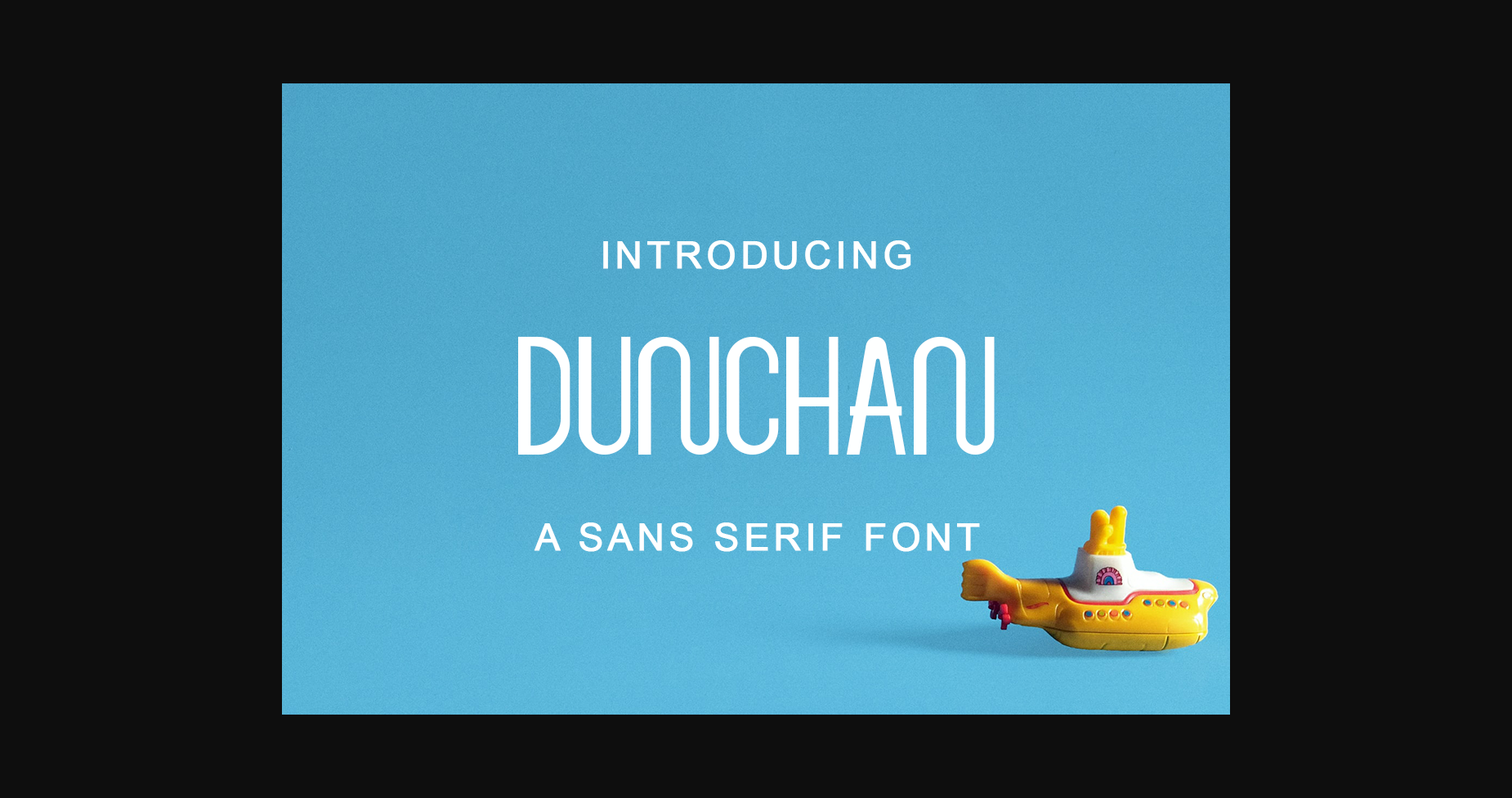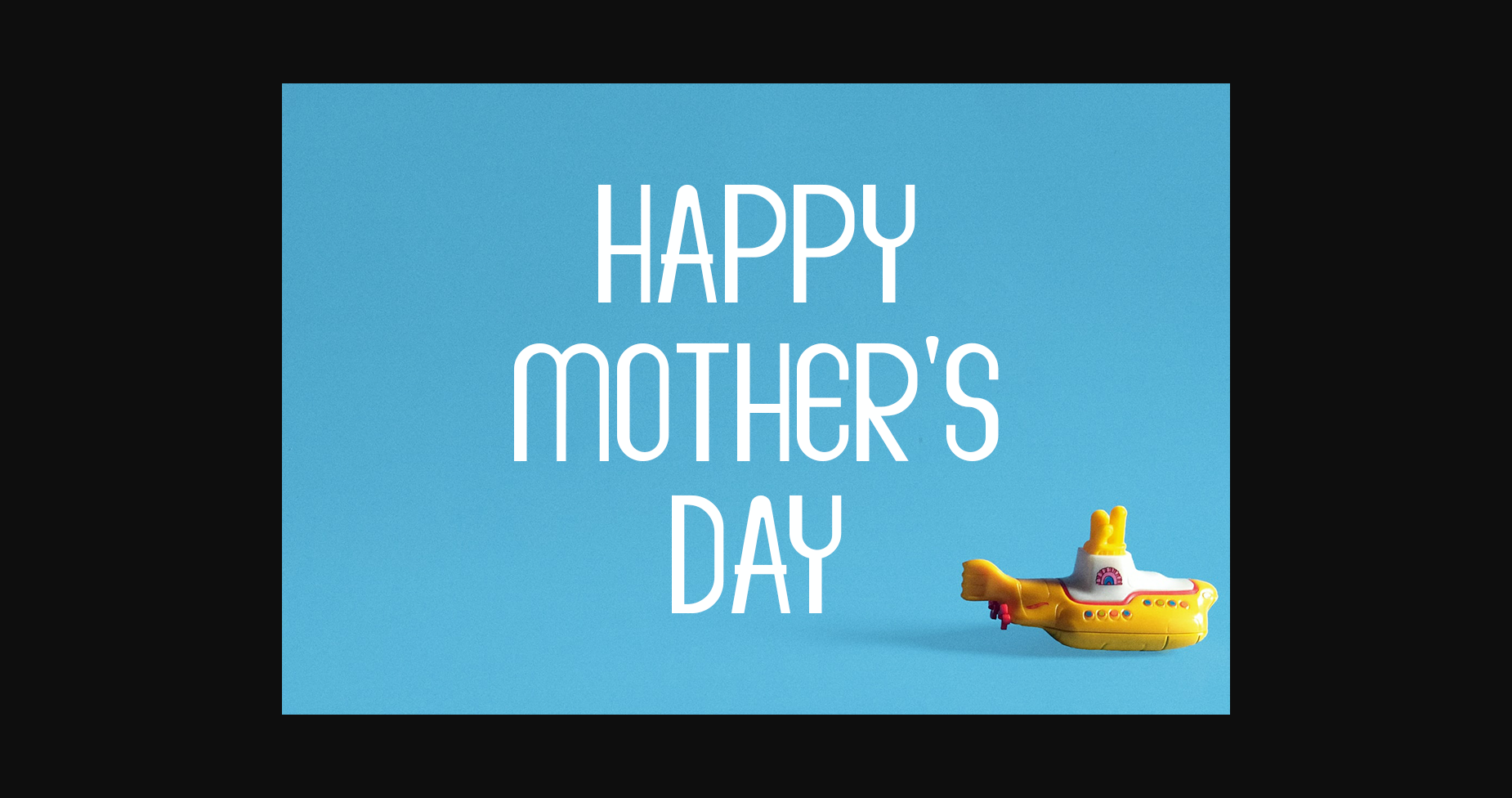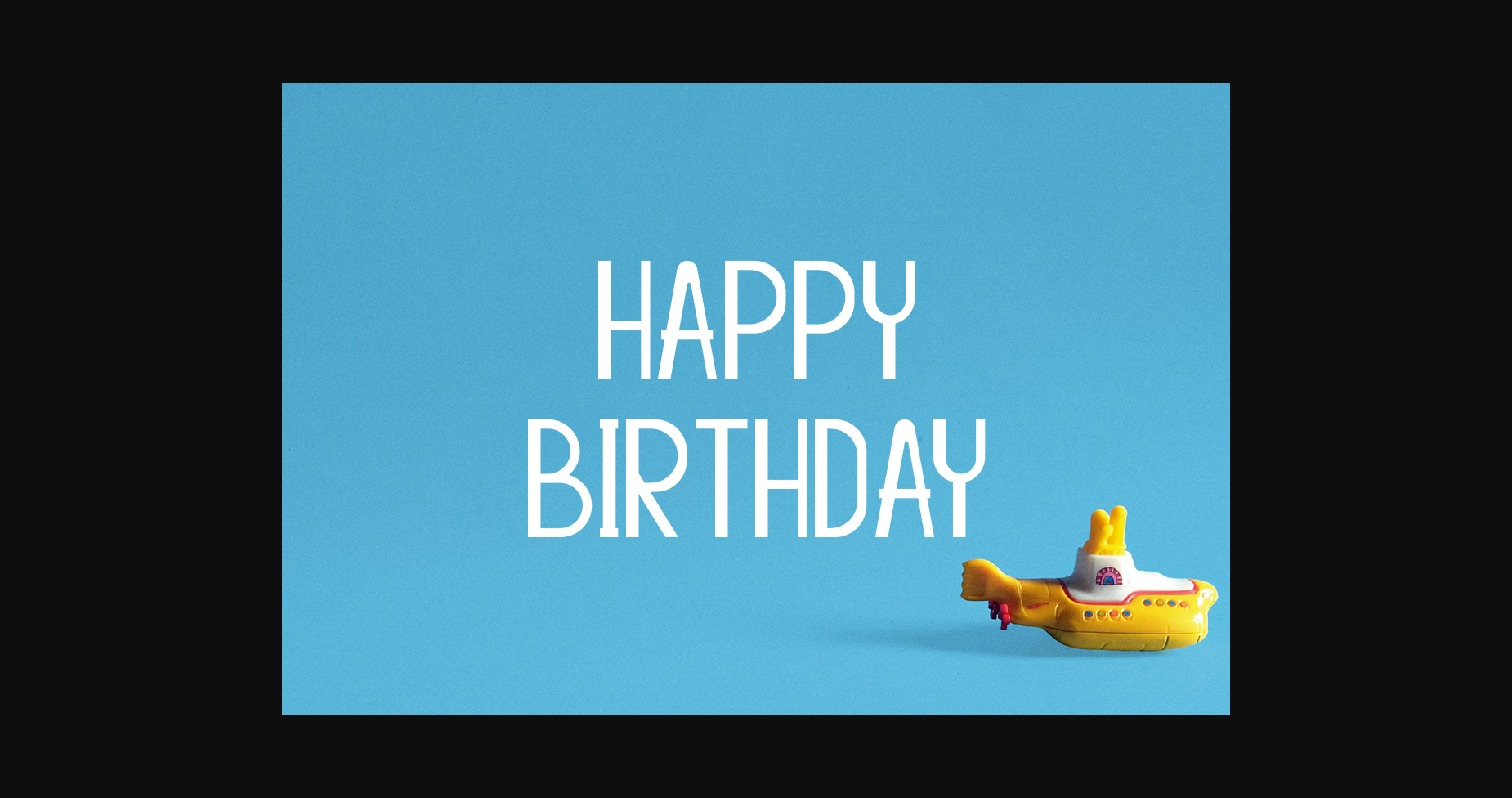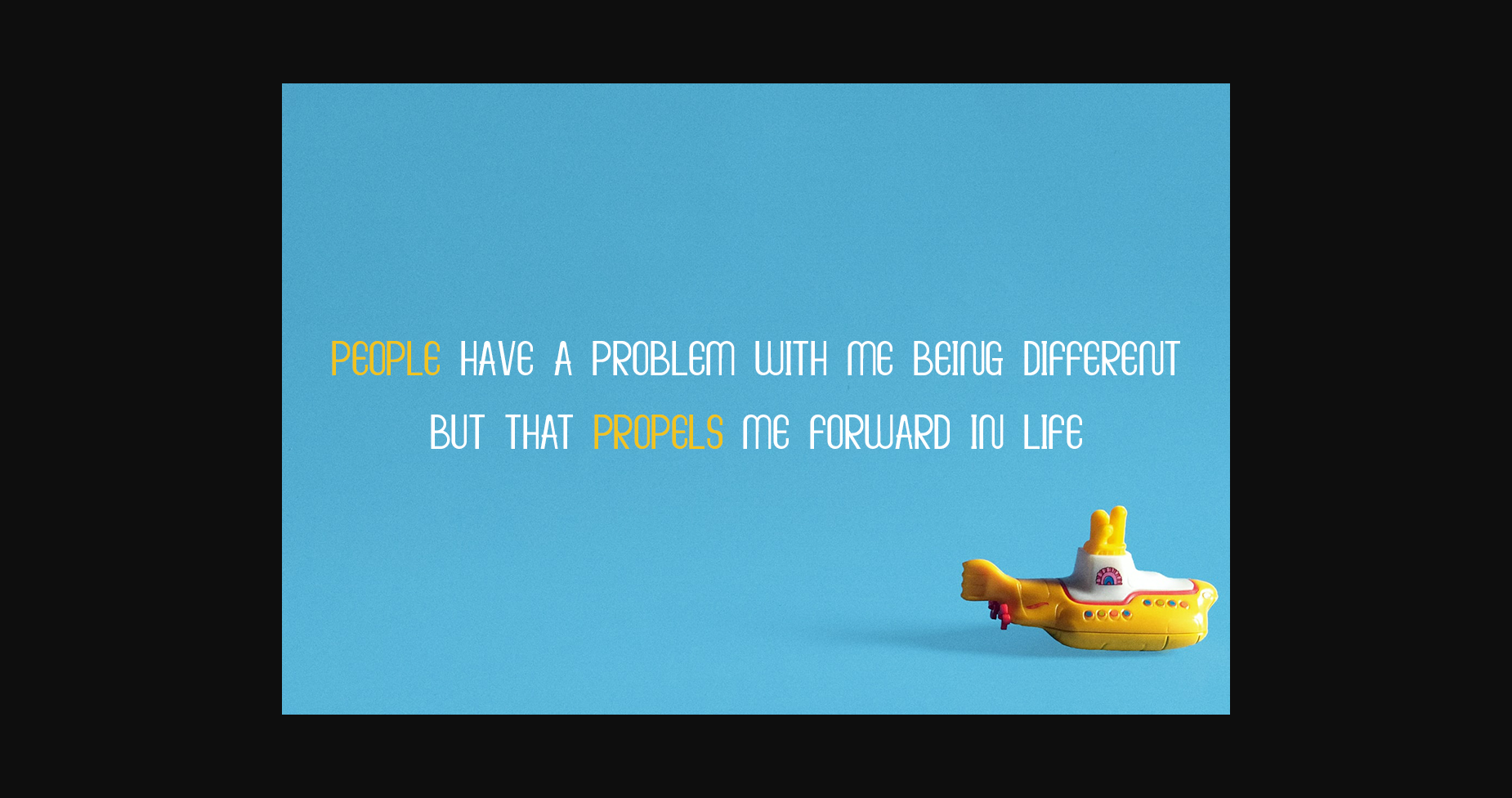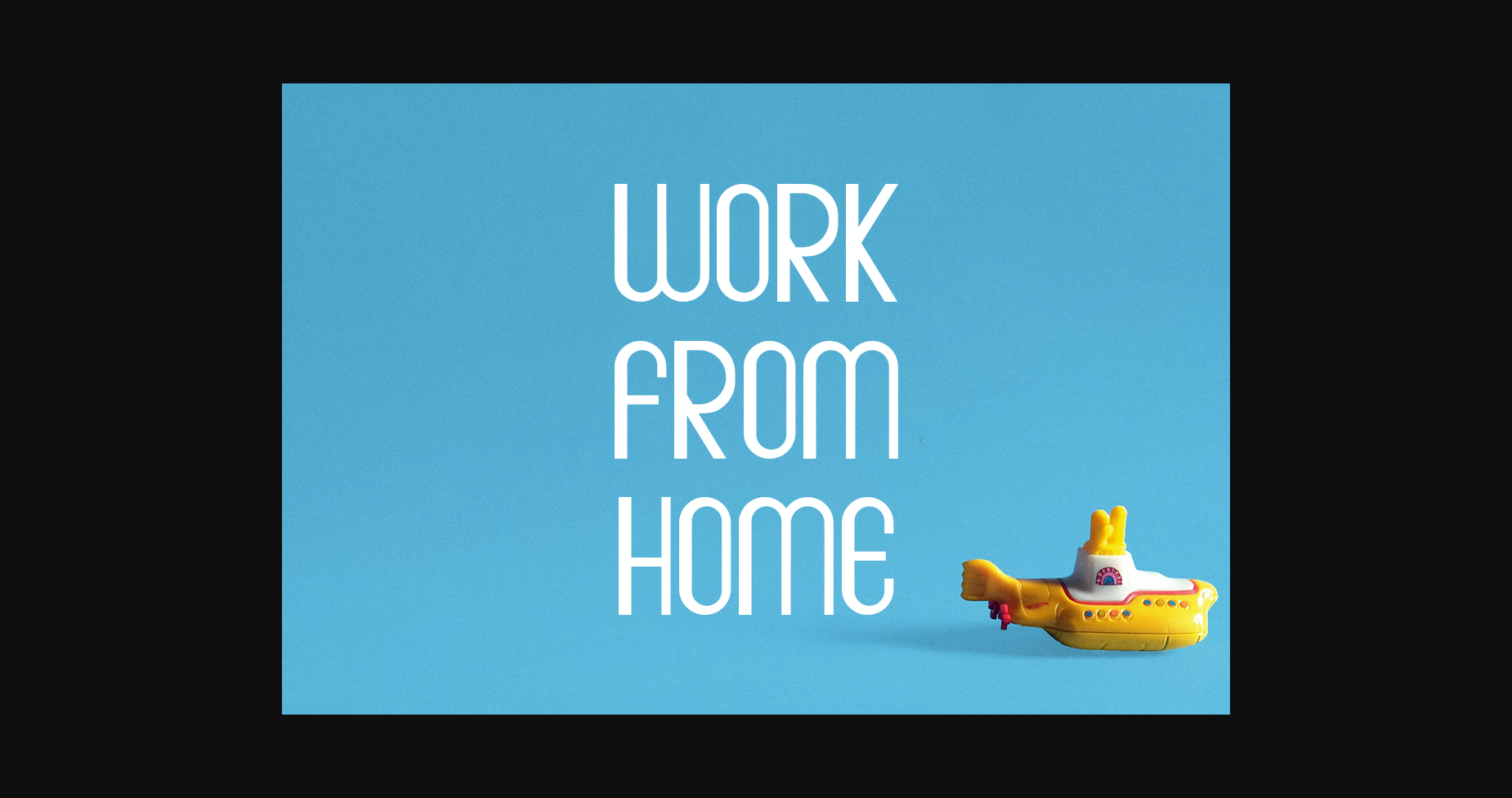
HomeSans Serif FontsDunchan Font Sans Serif Fonts Dunchan Font FacebookXPinterestWhatsApp 1 of 7 ... Dunchan Font Poster 2... Dunchan Font Poster 3... Dunchan Font Poster 4... Dunchan Font Poster 5... Dunchan Font Poster 6... Dunchan Font Poster 7... About Dunchan Font Dunchan is a modern and minimalistic sans serif font. This original look will appeal to a wide range of crafty ideas, from letterheads and titles, to stationery. DOWNLOAD NOW People also explored Secret Happines Font American Football Font Love Coffee Font Jupiter Love Font Retro Mexico Font Waypointer Marlina Beauty Font Elabama Font Be Cool Font 312 0 TagsDunchanDunchan Font Previous articleFabrica FontNext articleLorena Font LEAVE A REPLY Cancel reply Comment: Please enter your comment! Name:* Please enter your name here Email:* You have entered an incorrect email address! Please enter your email address here Website: Save my name, email, and website in this browser for the next time I comment. Personal Use Free The Fourth Avenue Personal Use Free Read more about this font Adventure Font Personal Use Free Read more about this font Delions Personal Use Free Read more about this font Calega Personal Use Free Read more about this font BLOG How to Install and Use Fonts on Windows, macOS, and Web Projects How to Install and Use Fonts on Windows, macOS, and Web Projects Fonts are a crucial part of design and branding. Whether you’re designing a... Where to Buy American Fonts Online in 2024 Free Fonts Risk: Why Free Fonts Can Be Dangerous for Designers How to Cut Any Font on Cricut: Convert a Font to SVG (Free)